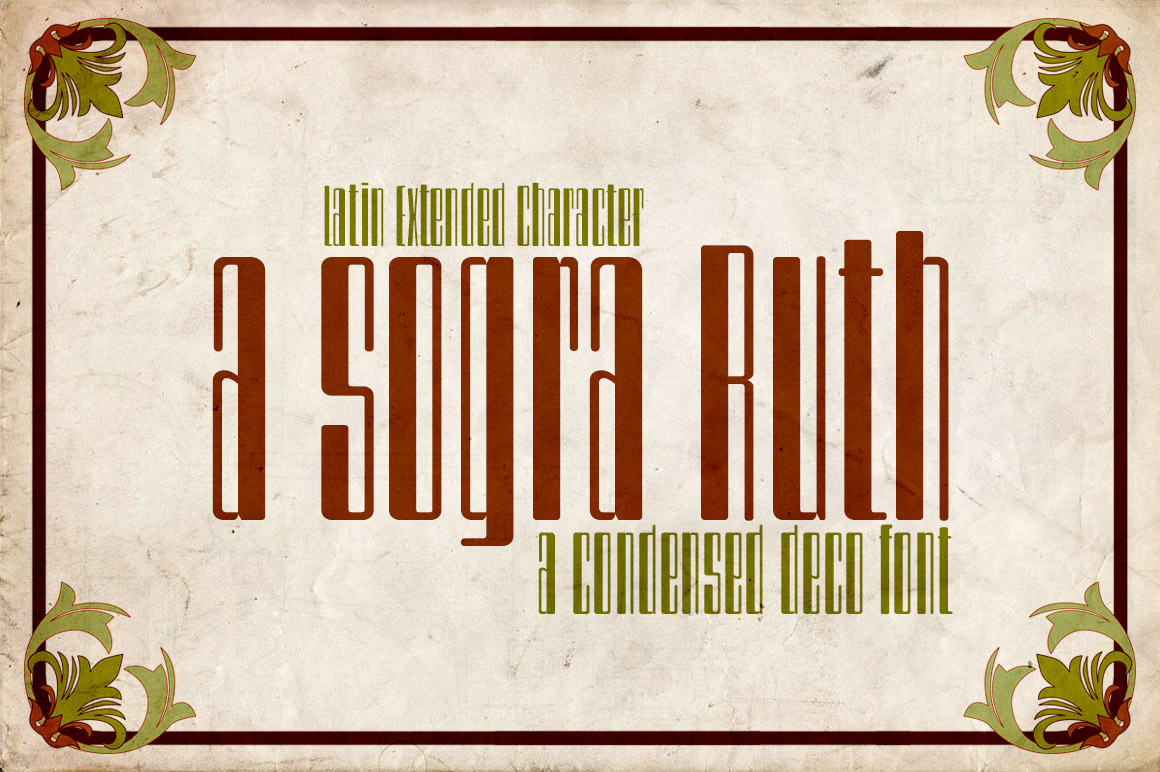
A sogra Ruth -font-
Sans-serif style art deco condensed ultra high contrast between antlers and rounded at the corners. Font display to save space on long or advertising pieces which seeks a modernist style titles.
- Alternate characters • Numbers old style • Numbers Small Caps • Ligatures • Fractions • Denominators • Numerators • Slash zero • Currencies.